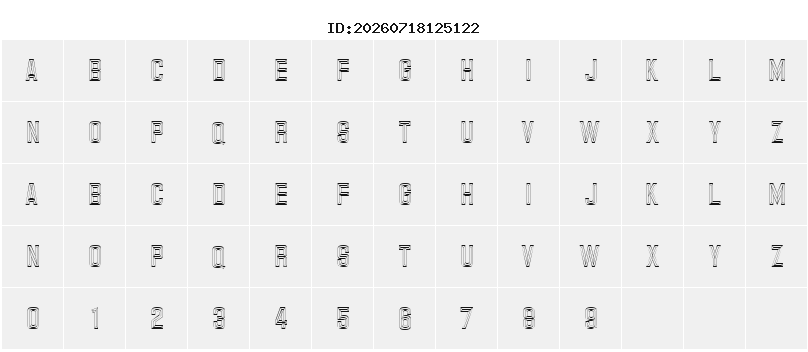
• Font Name: Carplate MN
Carplate MN.ttf is a modern, elegant sans-serif font designed for ultimate readability and visual harmony. Perfect for branding, headlines, web design, and print materials.